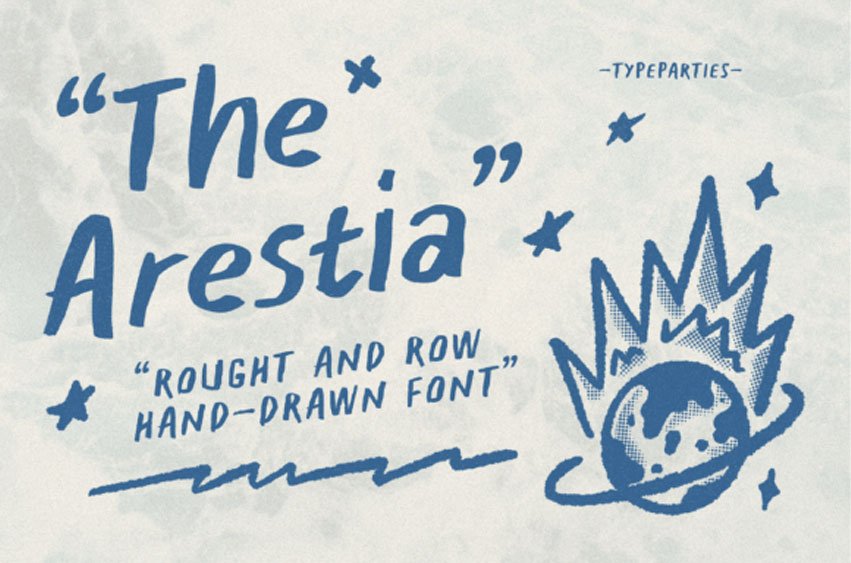
Arestia Font is A rough sans-serif typeface made with a unique shape. Arestia includes uppercase, lowercase, and multi-lingual.
So it can be used for your creative stuff.